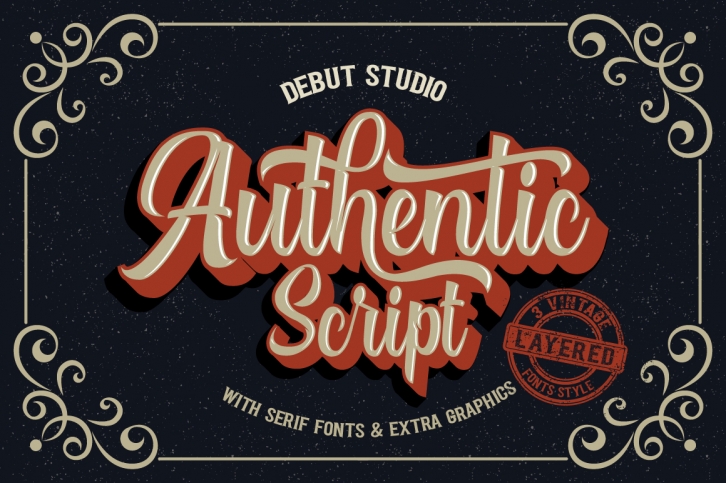
Authentic Script Layered s is a great font that was designed by Debut Studio. Imagine the amount of combinations you can create using this font! The archive is 10.74 MB and it was released on February 12, 2019. Authentic Script Layered s looks beautiful on wedding invitations, greeting cards, logos, posters, labels, t-shirt designs, logos, business cards and is perfect for use in ink or watercolor works, fashion, magazines, packaging and food menus, children's books and more!